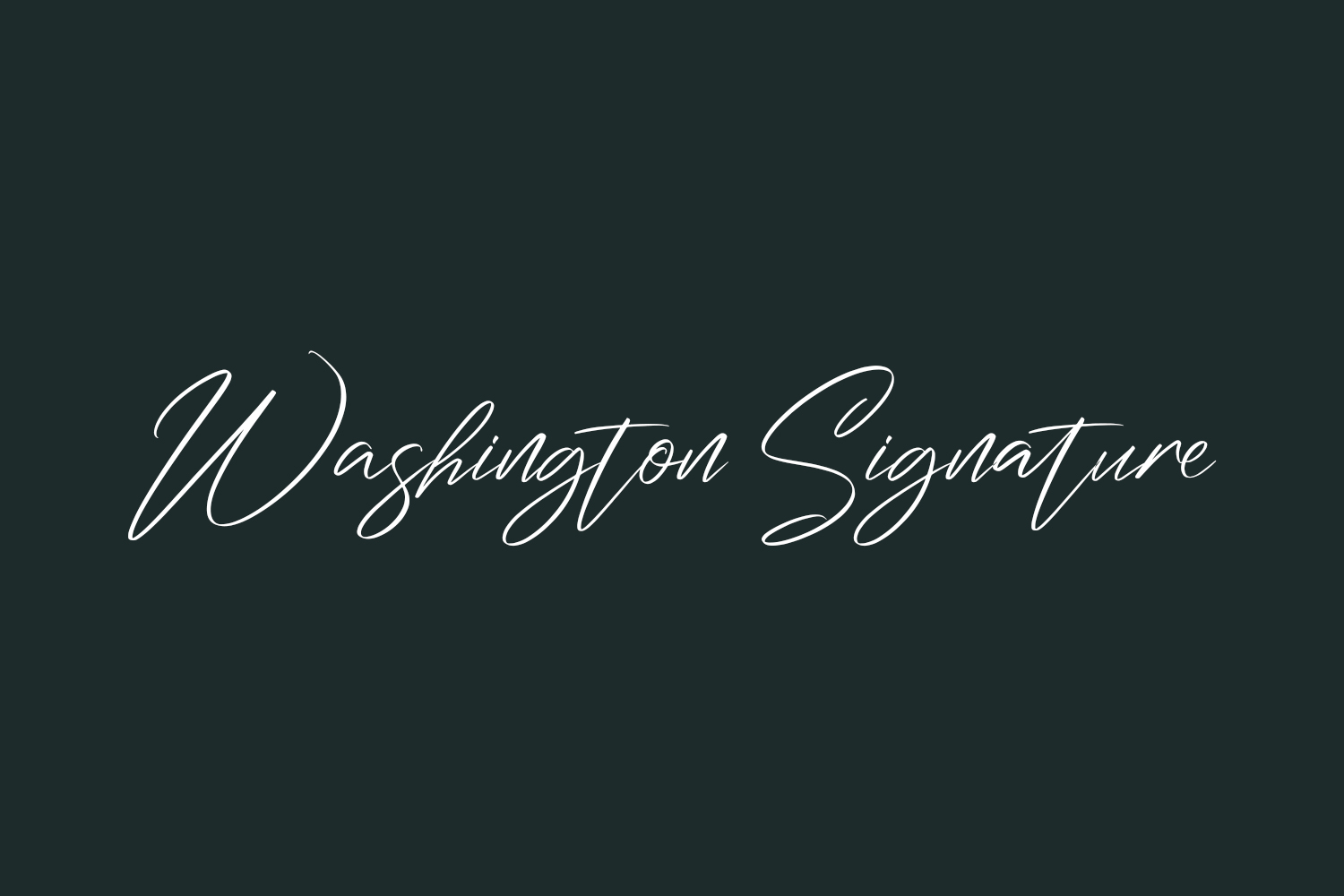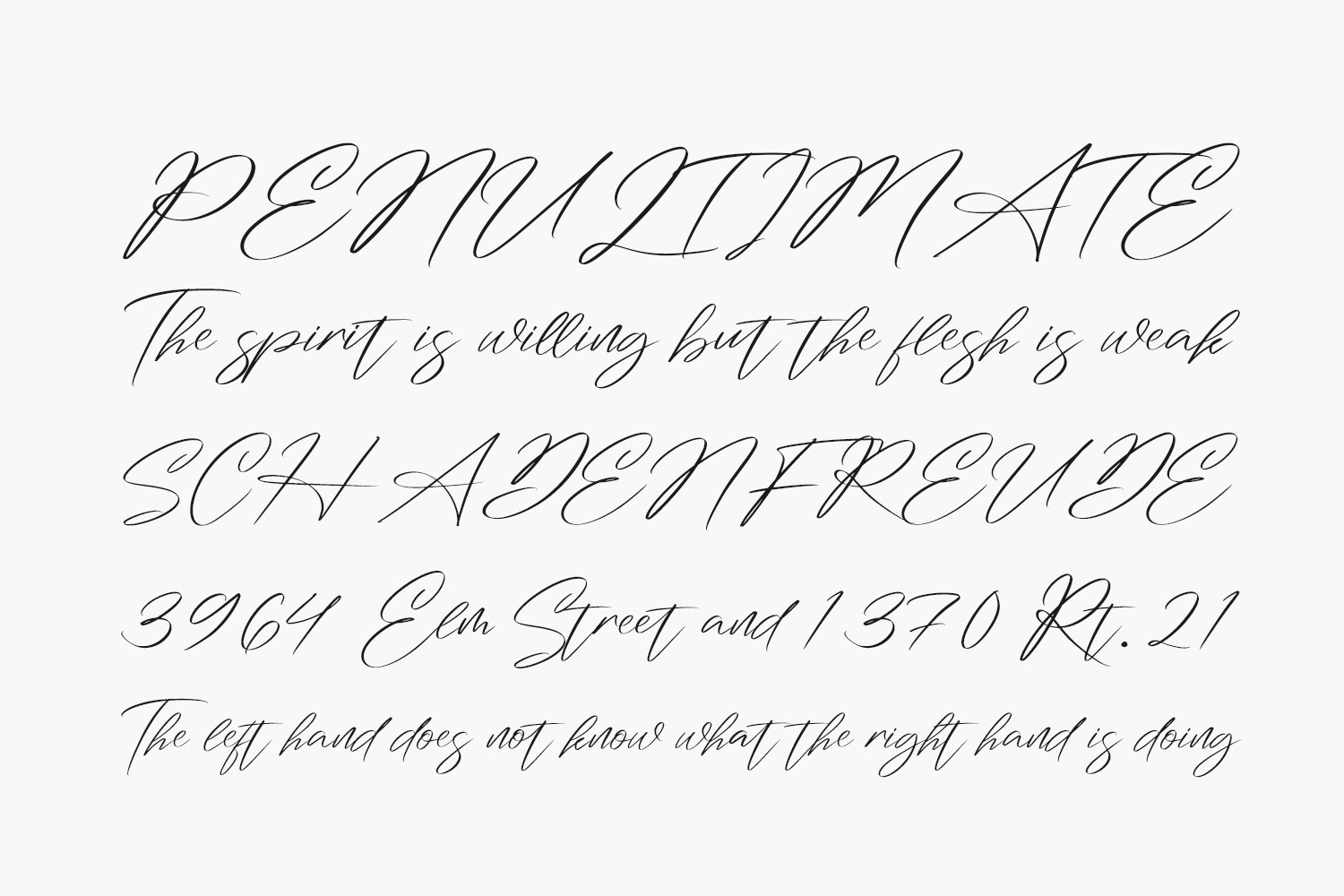
Washington Signature Free Font is a beautiful light handwritten font with a unique feel and a stunning impact. It will add a luxury spark to any design project that you wish to create! This font is PUA encoded which means you can access all of the amazing glyphs and ligatures with ease. Washington Signature Free Font was designed by Perspectype Studio and is free for personal use only. Please purchase the full version for commercial use.
Washington Signature Regular The quick brown fox jumps over the lazy dog